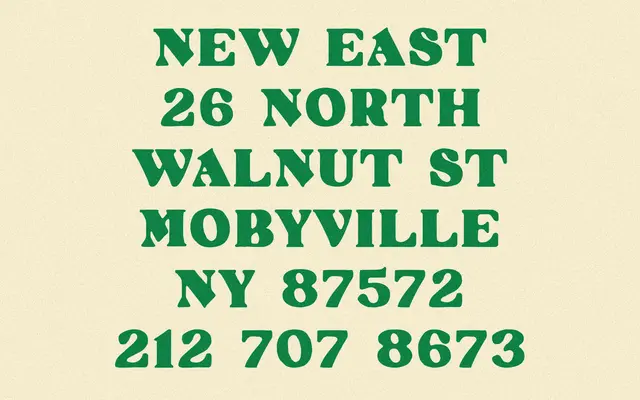
Fortune
A single-weight chunky display serif with a retro character, built for headlines and logo work with a 70s desert aesthetic.
A bold, heavy display serif with pronounced strokes and a distinctive personality suited to logos, packaging and short-form display copy. The glyph set is modest at 151 characters, covering basic Latin with a limited selection of accented forms. Customer responses point toward vintage and handcrafted applications, particularly branding work with a retro or analogue quality.
Described as chunky with strong legs, Fortune reads as a bold display serif with personality, suited to headlines and branding rather than text setting.